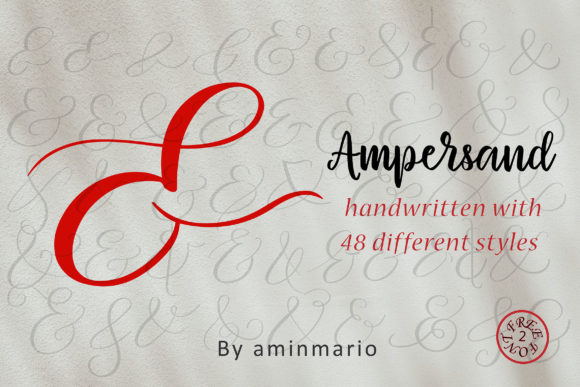
Ampersand | 48 Different Styles Font: A Designer’s Dream Come True
I’ll never forget the moment I stumbled upon the perfect font for a client’s monogram project. I had been searching for what felt like hours, trying out different styles and combinations, but nothing seemed quite right. That was until I discovered the Ampersand font with 48 different styles. It was like a breath of fresh air! ✨
As a designer, I know how frustrating it can be to find a font that meets your creative vision. But with Ampersand, I was able to create a stunning monogram that exceeded my client’s expectations. In this article, I’ll share my experience with this incredible font, its features, and how to make the most of it on various design platforms.
• ✨ A massive 48 different styles to choose from, ensuring you’ll find the perfect fit for your project
• ✅ Natural handwriting feel that adds a personal touch to your designs
While Ampersand is an amazing font, there are a few things to keep in mind: 🤔
• ⚠️ It’s primarily designed for monograms, so it might not be the best choice for writing words or sentences
• 🤔 Some styles may require adjusting the font size or kerning to achieve the desired look
The Ampersand font was created with the intention of providing designers with a versatile and creative tool for monogram design. The designer behind this masterpiece drew inspiration from natural handwriting and the beauty of imperfection. By combining 48 different styles, they aimed to create a font that would cater to various design needs and personal tastes.
Can I use Ampersand for writing words or sentences? While Ampersand is primarily designed for monograms, you can experiment with using it for short phrases or sentences. However, keep in mind that it may not be the most legible choice for longer texts.